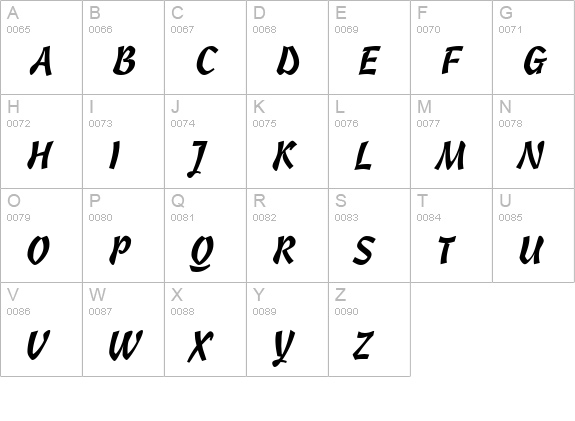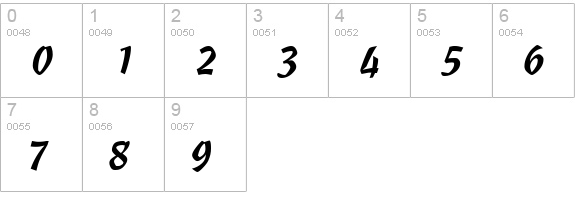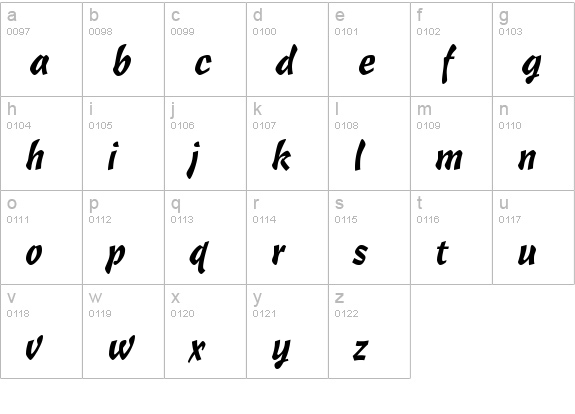
Quiberon Font Details
Quiberon font is a versatile and elegant typeface that perfectly balances modernity with a touch of classic sophistication. With its clean lines and subtle curves, Quiberon is ideal for a wide range of design projects, from branding to editorial design. One of the best things about Quiberon font is that it is completely free to download. You can easily access this stunning typeface at FontsMarket.com, where you can add it to your font library at no cost. Embrace the beauty and versatility of Quiberon font in your next project and elevate your designs with its timeless appeal.